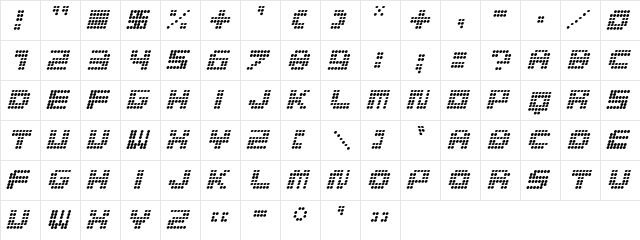
MedLed Italic
| Foundry | MedLed is designed by Lopetz, b ro destruct, Distribution: APPLY DESIGN GROUP, Germany |
Design Context for MedLed Typeface
MedLed is a composed and adaptable typeface that performs quietly and consistently across a wide range of design contexts. Its italic angle brings a sense of urgency and motion to the letterforms.